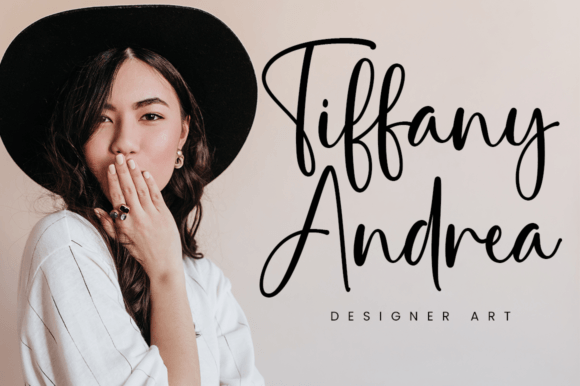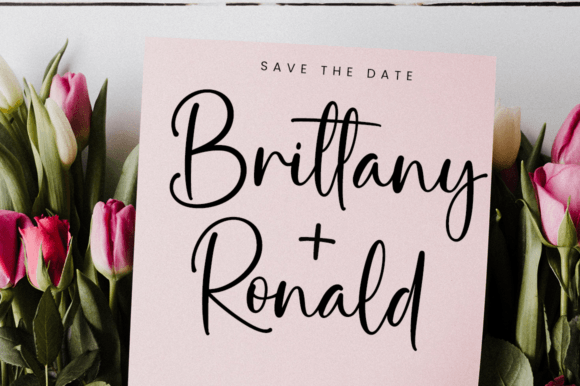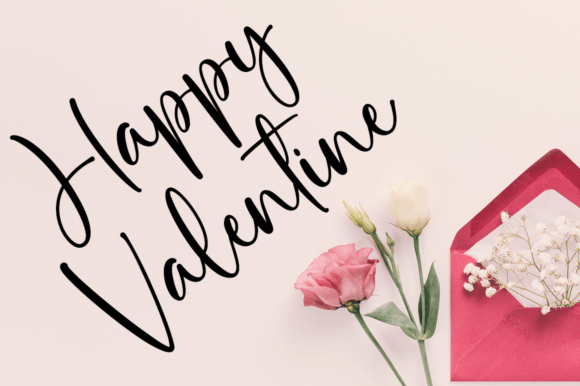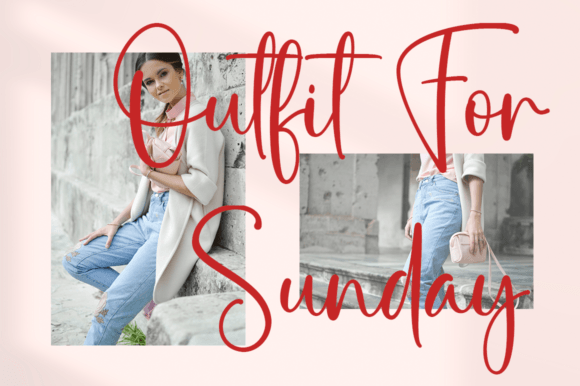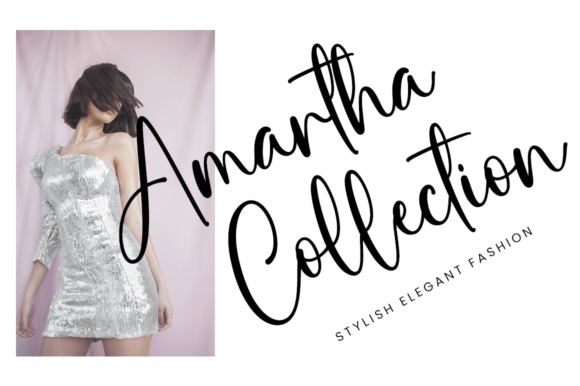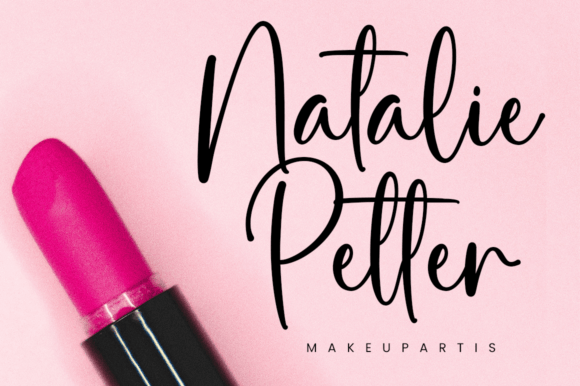
Introduction to Ratih Font
As a designer, you’ve likely found yourself staring at a blank page, trying to bring a creative project to life. The words won’t come, the images won’t cooperate, and your mind is a blank slate. But then, like a ray of sunshine, you stumble upon the perfect font – one that elevates your design from bland to grand. For many, that font is Ratih Font, a lovely and delicate script font that exudes elegance and class.
Ratih Font is more than just a pretty face, however. Its PUA encoding means you can access all of the glyphs, giving you the freedom to customize your design to perfection. With a transparent background, this font is perfect for overlaying on images or videos, adding an extra layer of sophistication to your creative project.
Honest Review: Ratih Font
As a designer, I’m always on the lookout for high-quality design resources to elevate my creative projects. Recently, I stumbled upon the Ratih Font, and I’m excited to share my honest review with you.
What works well: ✨ The Ratih Font is incredibly versatile and comes in a range of weights, making it perfect for designing logos, headings, and even entire typography-based projects. I love how it looks great on both light and dark backgrounds, and its transparent background feature allows for seamless integration with any design element.
Limitations: ⚠️ While the Ratih Font is a great addition to any designer’s toolkit, I do wish it came in more exotic styles to cater to a wider range of design projects.
For the best results, use Ratih Font with a high-contrast background to showcase its unique design. Experiment with different font sizes and styles to create a visually appealing effect.